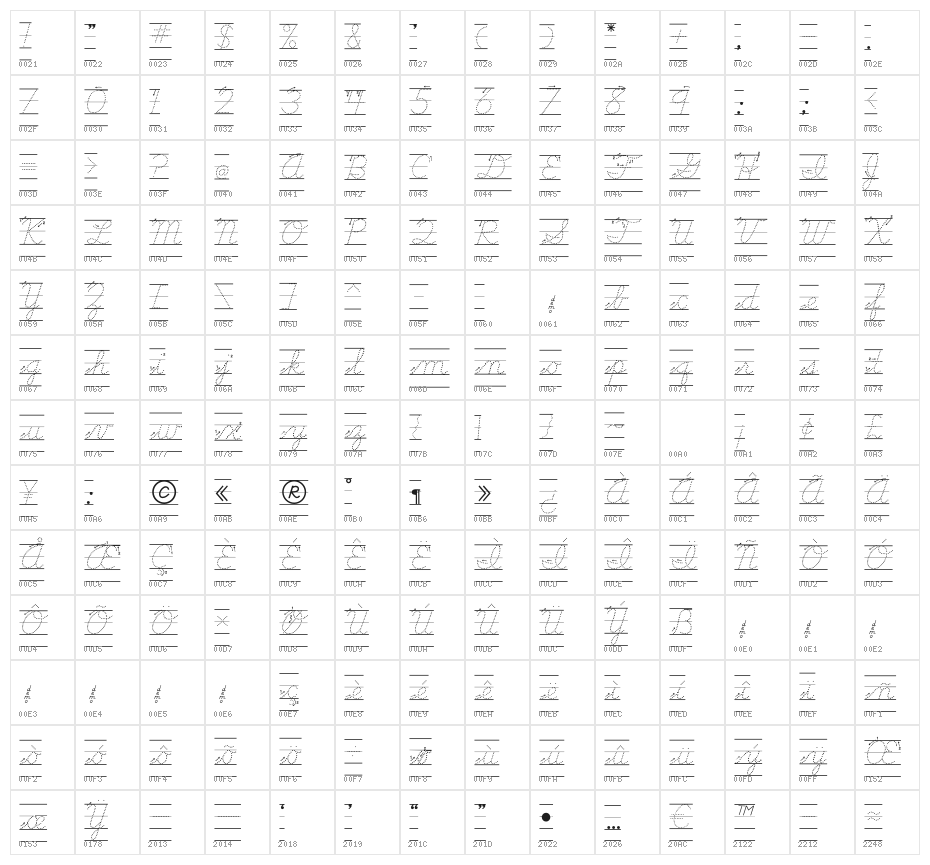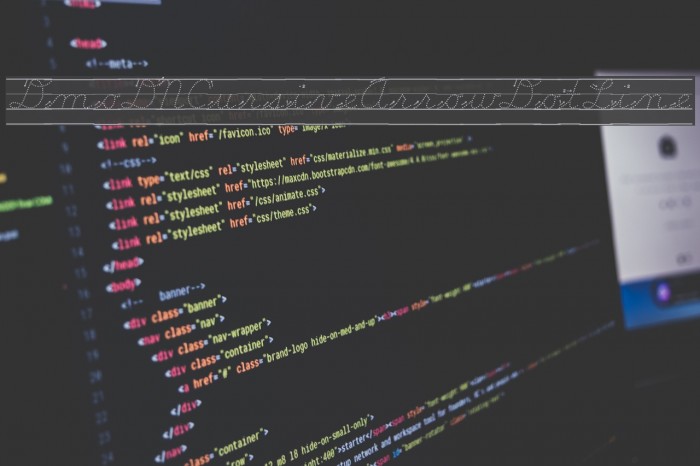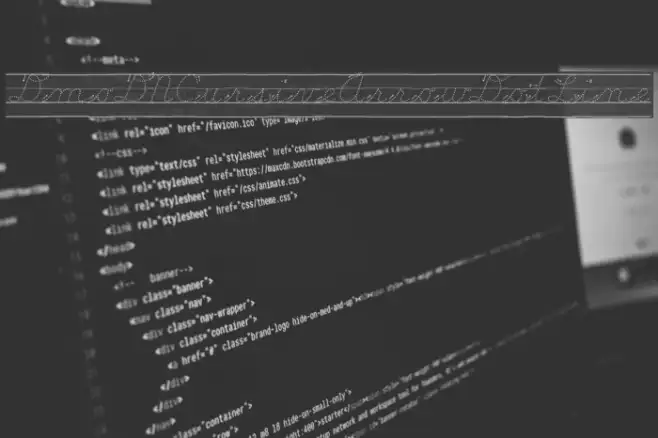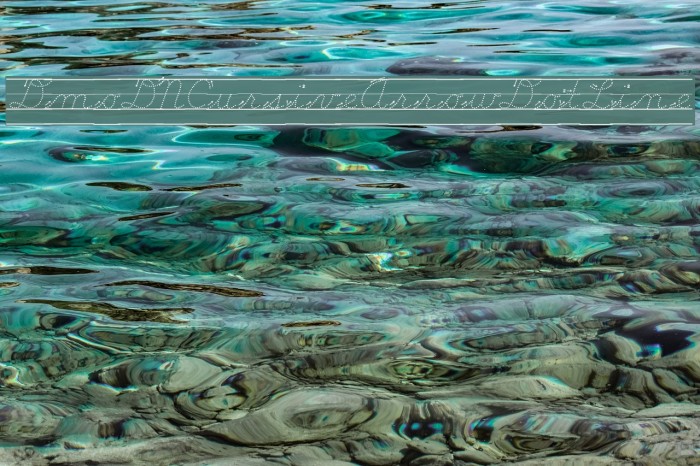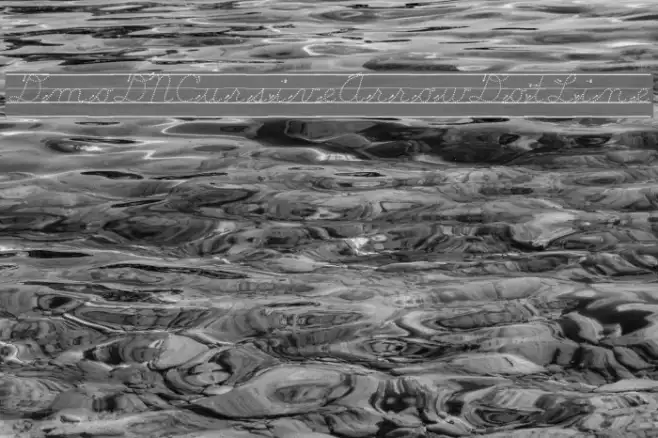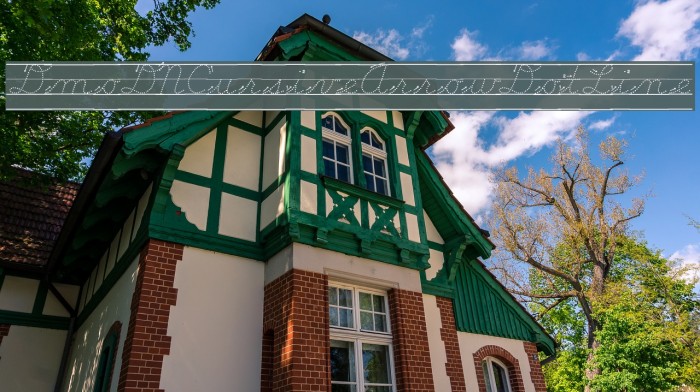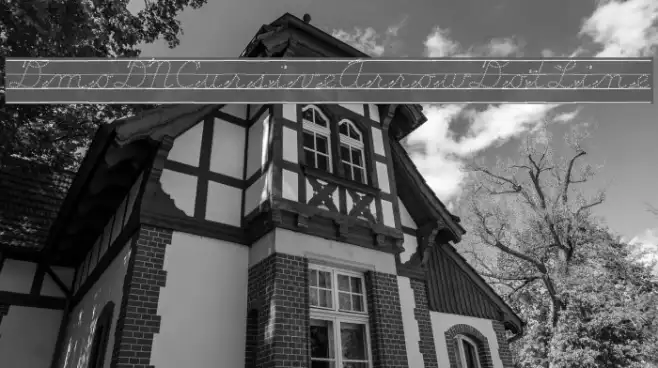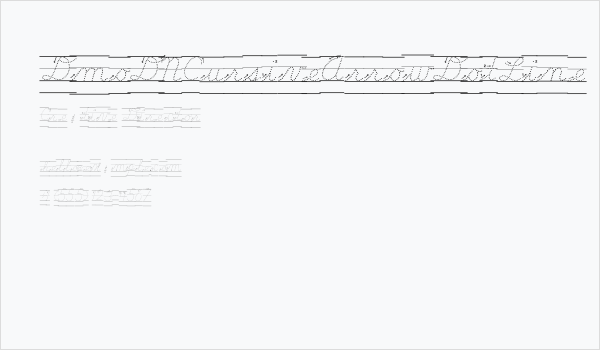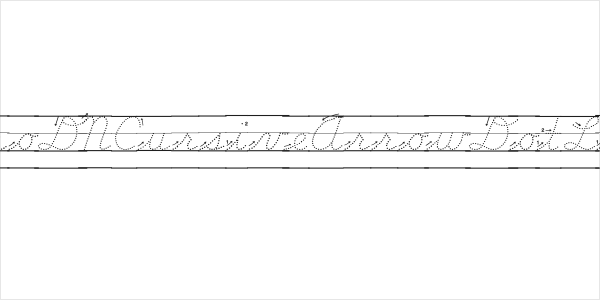
DmoDNCursiveArrowDotLine Font
DmoDNCursiveArrowDotLine Description
This font is a dotted cursive style designed to aid in handwriting practice. Each character is composed of a series of dots, providing a guide for learners to trace over. The uppercase and lowercase letters are connected in a flowing, script-like manner, emphasizing smooth transitions between characters. Numbers and special characters are also included, maintaining the dotted pattern for consistency. The font is ideal for educational purposes, particularly for young students or individuals learning cursive writing. Its design encourages proper stroke order and direction, as indicated by small arrows and numbers accompanying certain letters.
| Overall Style | Educational |
| Use Case | Handwriting practice, Educational materials |
| Proposed Projects | Ideal for educational materials, handwriting practice sheets, and learning tools for cursive writing. |